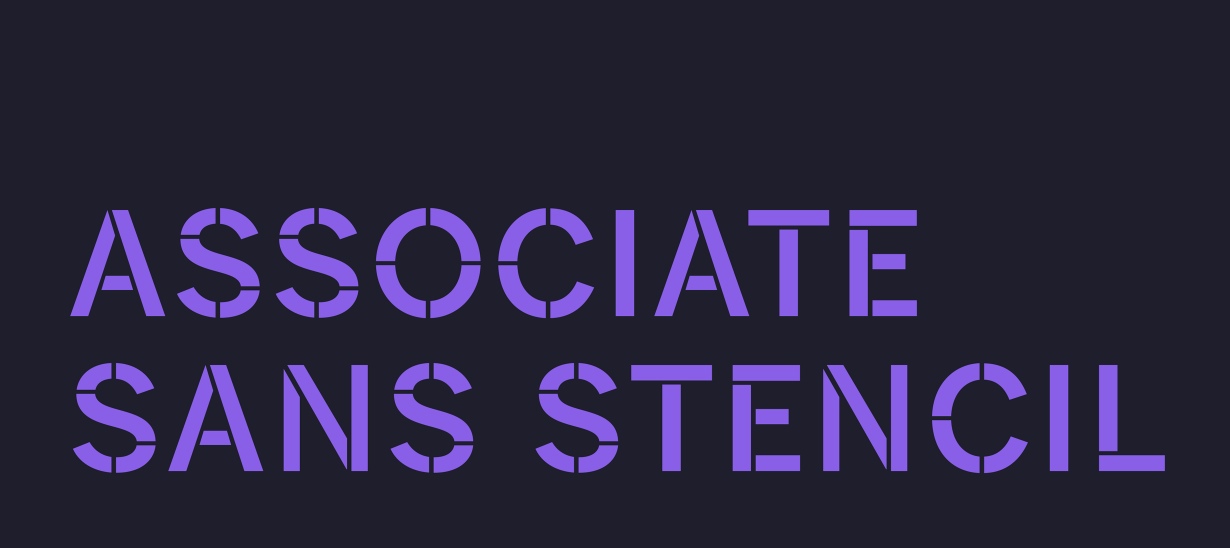
Associate Sans Stencil Font
Associate Sans Stencil Font is perfect for military-inspired branding, industrial design projects, warehouse signage, shipping and logistics materials, tactical gear branding, urban street art, concert posters, construction company logos, automotive branding, and rugged outdoor equipment packaging.
What makes Associate Sans Stencil Font exciting is its bold industrial character that combines military precision with contemporary urban aesthetics. The font features distinctive stencil cuts and strong letterforms that evoke strength, durability, and no-nonsense functionality. Its carefully engineered breaks and robust structure make it perfect for brands that want to communicate toughness, reliability, and professional competence while maintaining excellent visibility and impact across both digital and physical applications, especially in challenging environments.
Associate Sans Stencil Font family includes various weights such as Regular, Medium, Bold, and Heavy variations, often featuring different stencil cut styles and industrial-themed alternates. The family may include condensed versions and extended character sets with specialized symbols that enhance the font's utilitarian aesthetic, providing designers with multiple options for creating powerful brand identities with military or industrial themes.
This commanding typeface has gained significant popularity among brands requiring strong, authoritative visual communication. Associate Sans Stencil Font Free Download provides an opportunity to test this powerful typography solution before purchase. The font's technical specifications include optimized stencil breaks that maintain readability while preserving the authentic stencil aesthetic across all sizes and applications. Whether you're designing for security companies, construction firms, or adventure gear brands, Associate Sans Stencil Font delivers the industrial strength your project needs. Its versatile nature makes it suitable for various applications including shipping labels, equipment branding, tactical communications, and urban lifestyle brands, ensuring your typography choices convey durability, professionalism, and unwavering reliability while creating memorable brand experiences that command respect and attention.